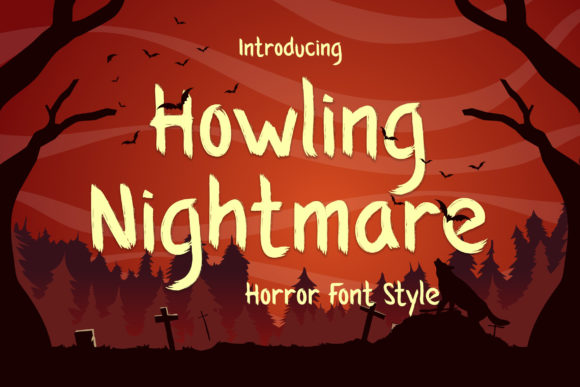
Immerse yourself in the realm of horror and macabre with Howling Nightmare, the ultimate display font designed to evoke chills and send shivers down your spine. Unleash your creativity and let this font be the harbinger of your darkest nightmares.
Within the depths of Howling Nightmare lies a tapestry of meticulously crafted characters, each meticulously shaped to capture the essence of terror. Its razor-sharp edges and haunting glyphs will leave an indelible mark on your designs, ensuring they resonate with an eerie allure.
With Howling Nightmare, you hold the key to unlocking a world of spine-tingling possibilities. Whether you're conjuring haunting posters, crafting spine-chilling book covers, or creating T-Shirts that exude an aura of darkness, this font will elevate your creations to new heights of horror.
Picture yourself crafting a Game Horror where every letter drips with foreboding, where each word weaves a tale of unspeakable terror. Howling Nightmare will transform your gaming experience, immersing players in a realm of darkness that will linger long after they've left the virtual world.
This font is more than just a collection of characters; it's a conduit to the realm of nightmares. It's an invitation to explore the deepest recesses of your imagination, to unleash your inner demons, and to create works of art that will haunt and captivate your audience.
With Howling Nightmare, the possibilities are endless. Its versatility extends to a myriad of projects, from crafting unsettling logos and business cards to designing merchandise that exudes a touch of the macabre. Allow this font to become your muse, your companion in the realm of the supernatural, and watch as your creations take on a life of their own.